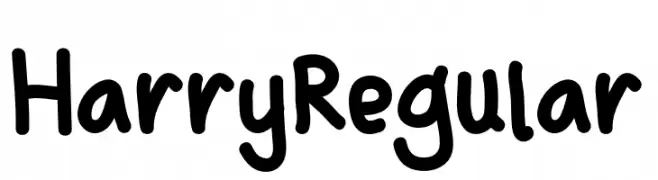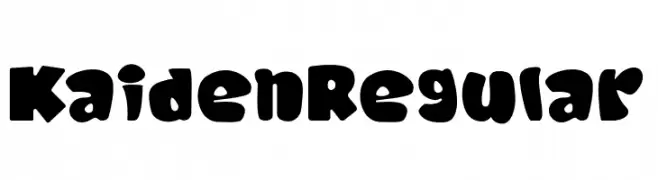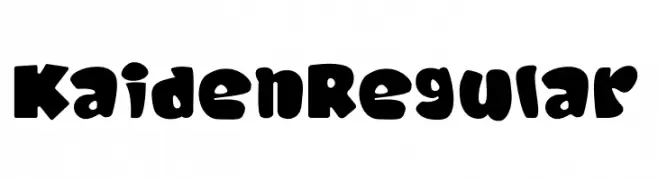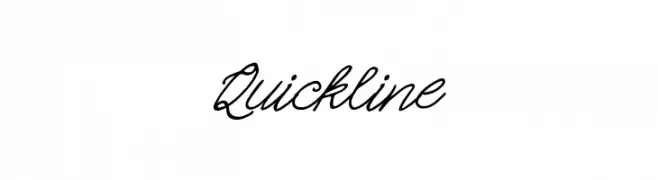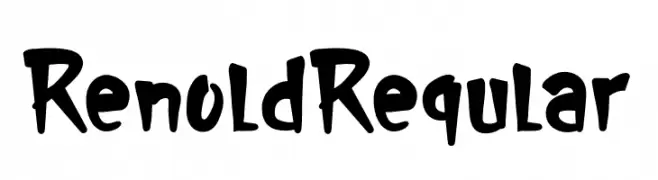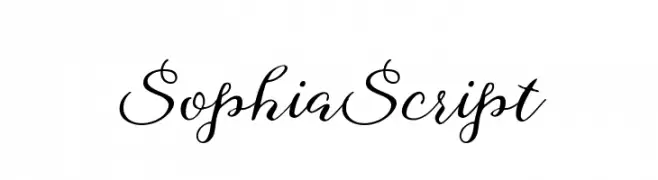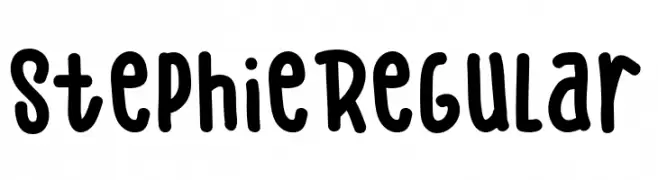
( Fonts by Ian Mikraz )
A fluid, cursive script font with elegant, connected characters.
An elegant script font with flowing, cursive letterforms and high contrast strokes.
An elegant script font with flowing, interconnected characters and ornate flourishes.
A playful, bold font with thick, rounded characters and a whimsical style.
A bold, playful font with rounded edges and a chunky, whimsical style.
A bold, playful handwritten font with dynamic and irregular letterforms.
A playful, bold handwritten font with a casual and friendly style.
An elegant script font with flowing, handwritten-style characters.
A graceful script font with flowing, cursive strokes and elegant flourishes.
Playful handwritten font with rounded edges.
Playful handwritten font with bold strokes.
Handwritten script with tall, whimsical characters and playful strokes.